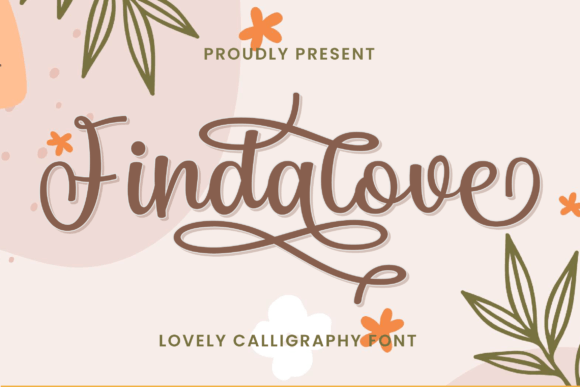
Unleash the vibrancy and charm of your designs with Findalove, a captivating script font family bursting with personality and style. Crafted by the talented team at Lettersweet, Findalove is an expression of creativity and joy, inviting you to create captivating hand-made typography that dances off the page.
With its energetic curves and playful loops, Findalove is a master of attention-grabbing visuals. Its dynamic presence makes it an ideal choice for designing logos that demand remembrance, printed quotes that resonate, invitations that entice, and cards that leave a lasting impression. Elevate your product packaging with Findalove's charismatic touch, or let your headers burst with individuality. The possibilities are endless, limited only by your imagination.
Empower your designs with Findalove's versatility. This remarkable font family is a chameleon of styles, effortlessly adapting to a multitude of creative endeavors. Its strokes dance gracefully across corporate logos, adding a touch of sophistication and professionalism. Unleash its playful side in whimsical designs, where Findalove's energy brings a sense of delight and wonder. Experience the font's romantic flair in wedding invitations and heartfelt messages, where its curves intertwine like a love story waiting to be told.
Findalove's PUA encoding is the key to unlocking its full potential. With this innovative feature, you can effortlessly access the font's entire repertoire of glyphs and swashes, opening up a world of creative possibilities. Experiment with diverse character combinations, weave enchanting ligatures into your text, and adorn your designs with a symphony of alternate glyphs. The possibilities are as boundless as your creativity.
Immerse yourself in the captivating world of Findalove, where elegance and playfulness dance together in perfect harmony. Let your designs radiate with personality and charm, captivating your audience with every stroke. Findalove is more than just a font; it's an invitation to unleash your creativity and create designs that resonate with the world. Embark on this typographic adventure today and discover the endless possibilities that await.